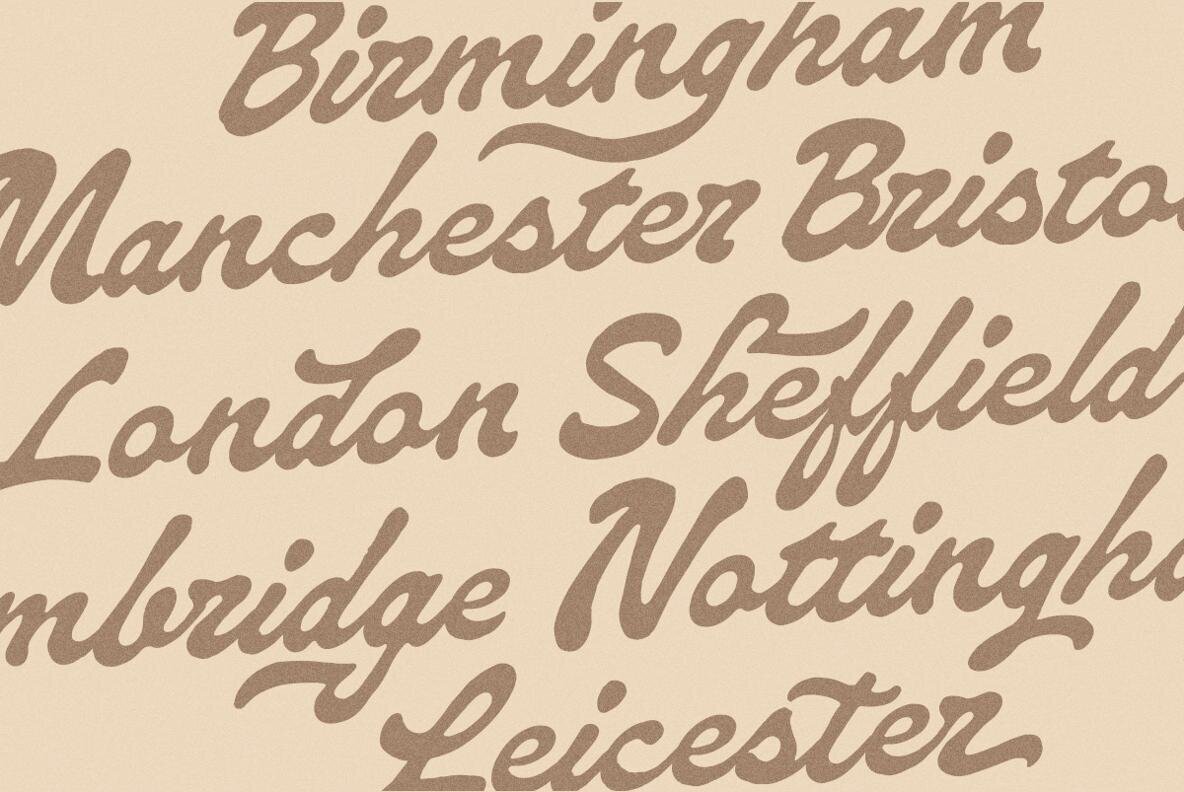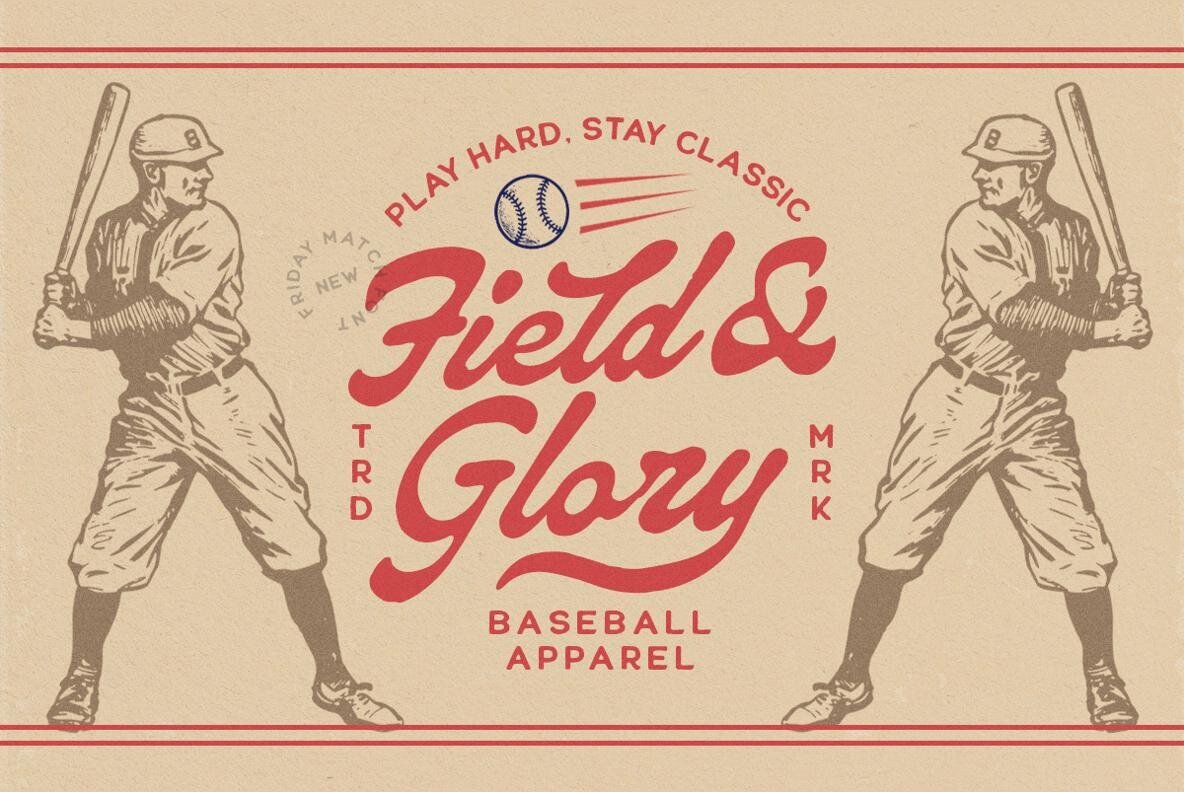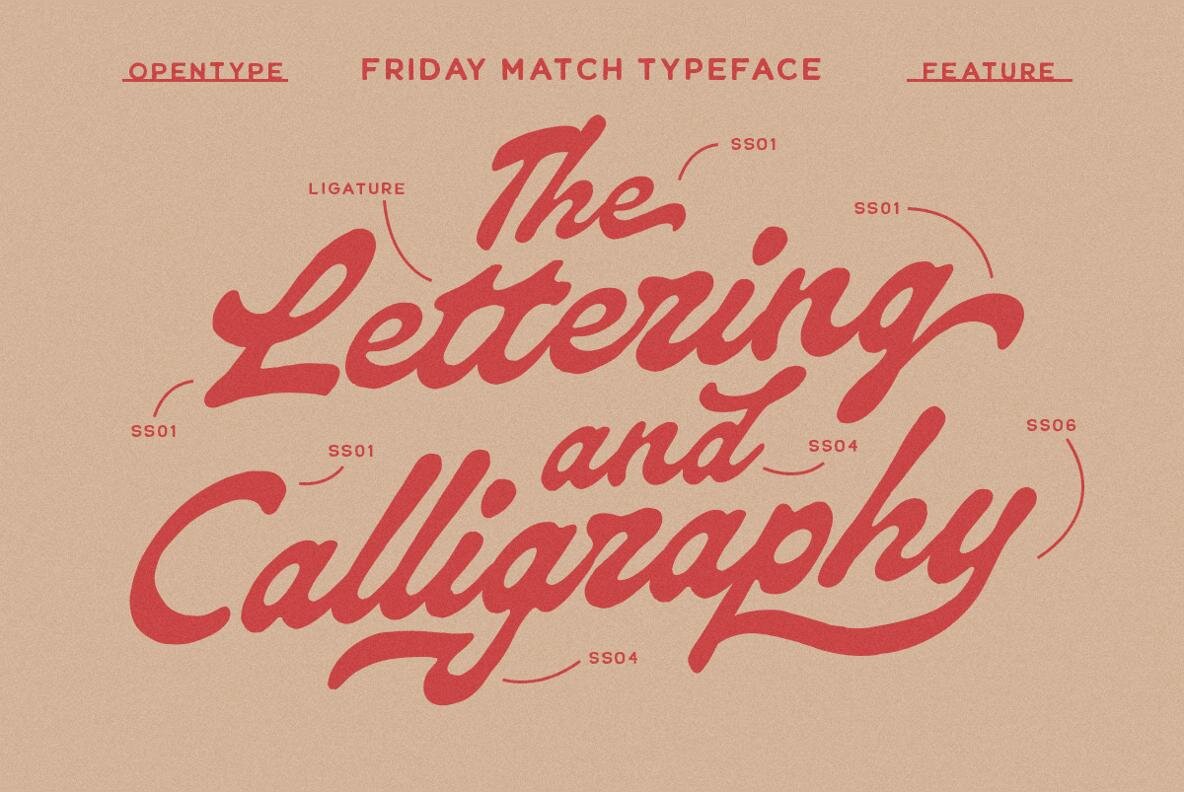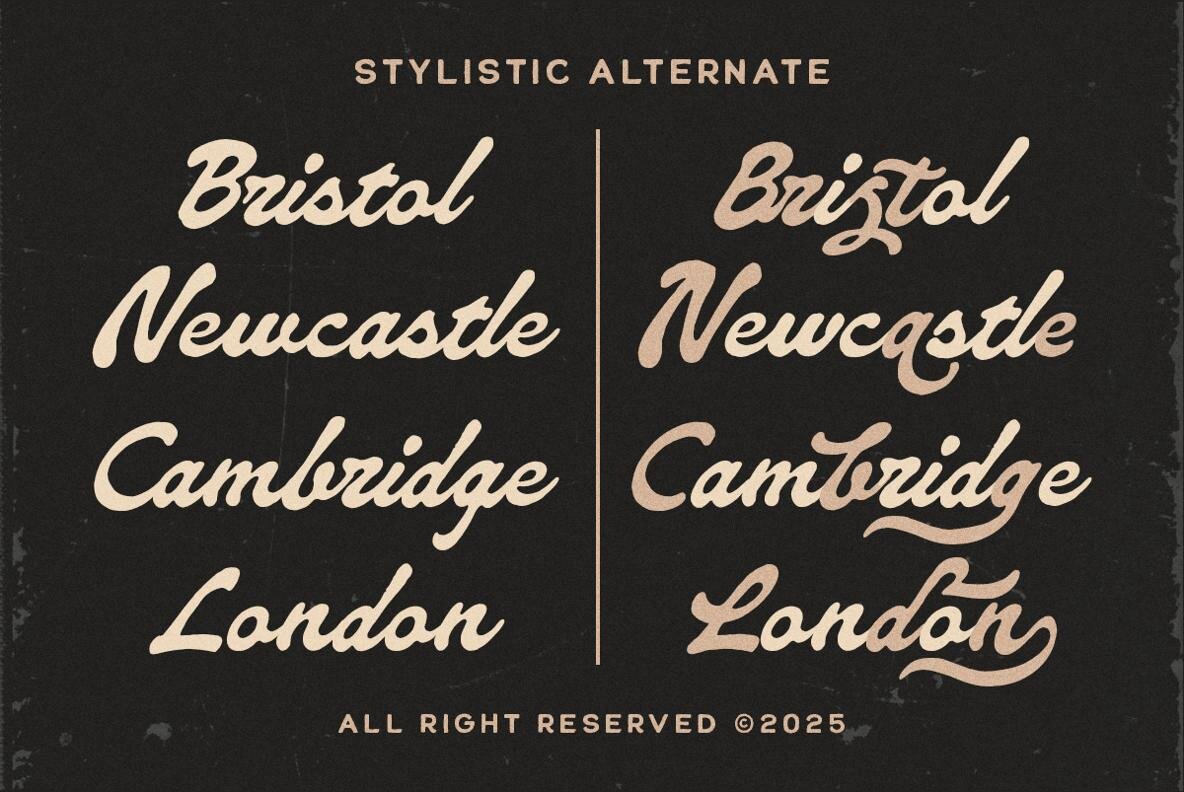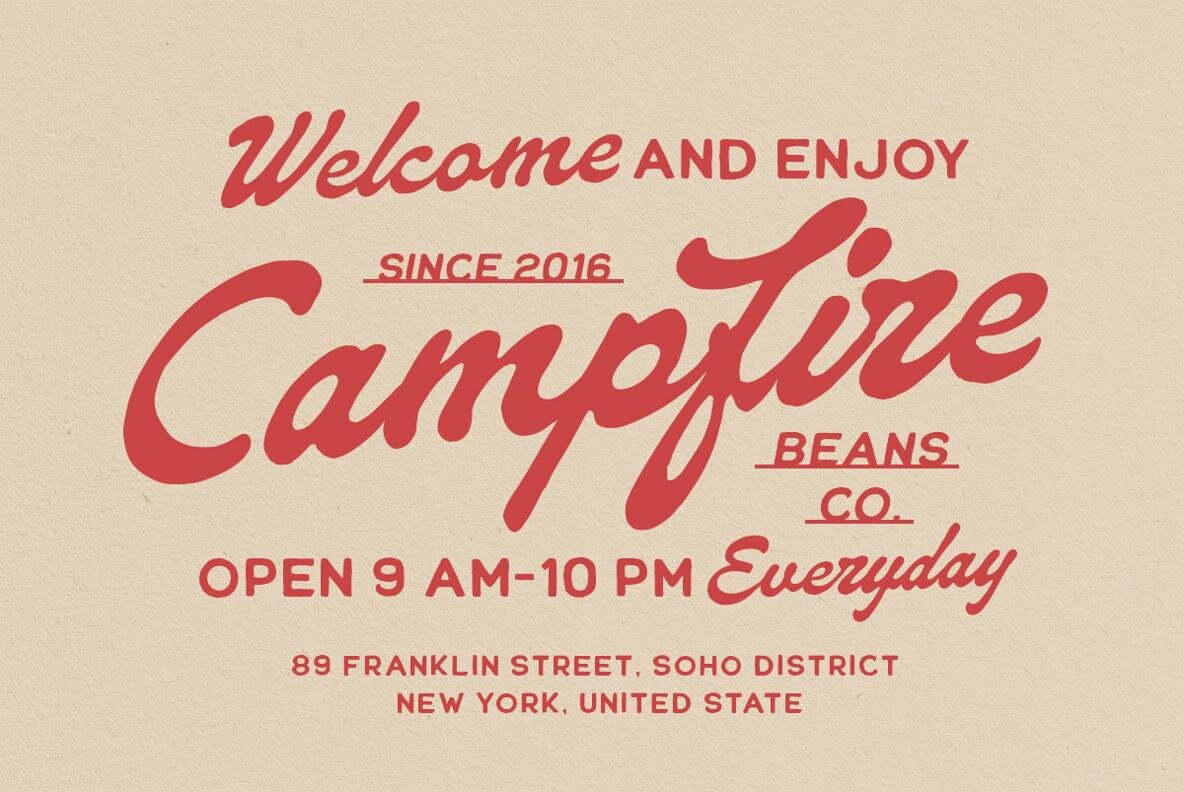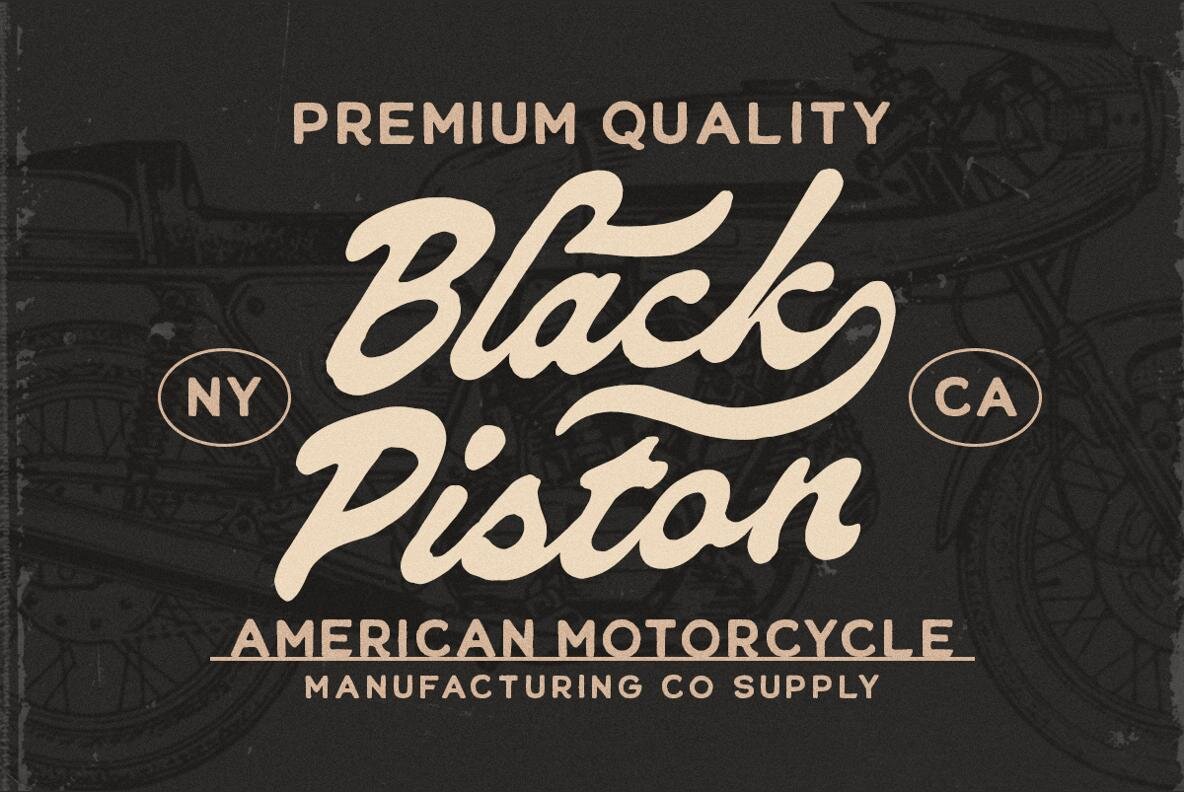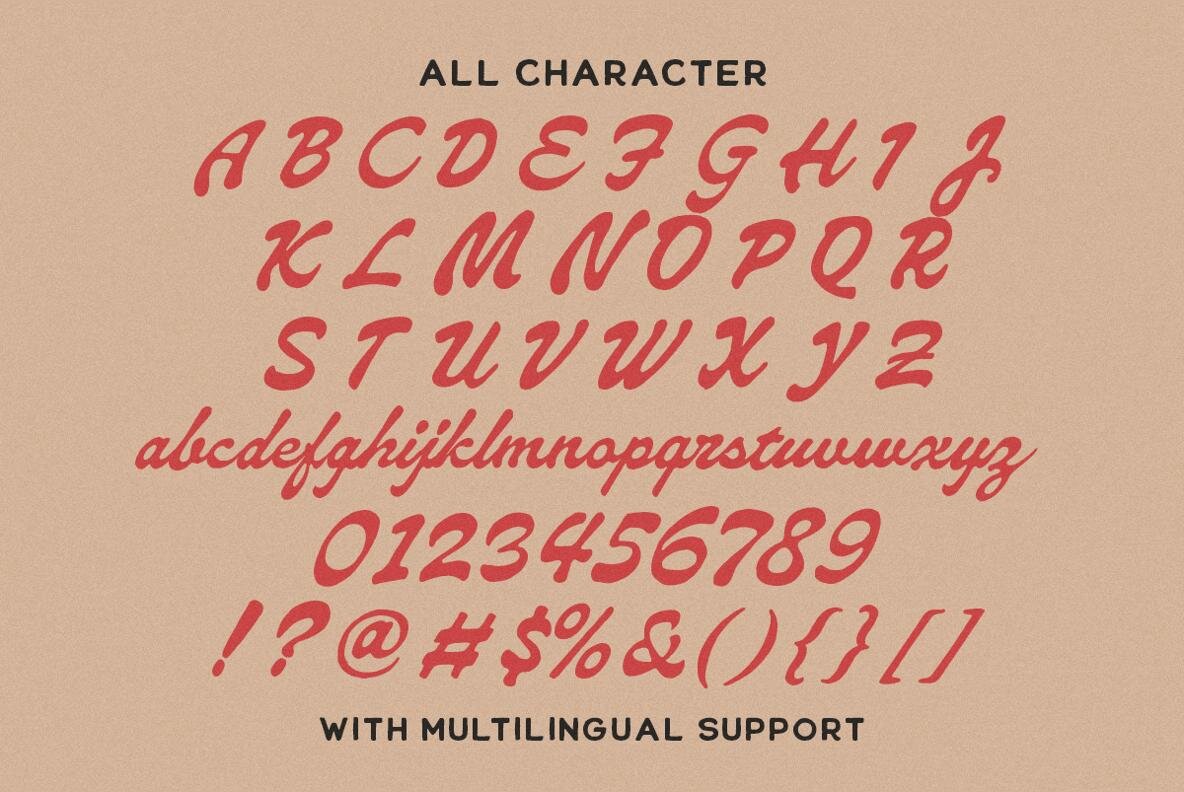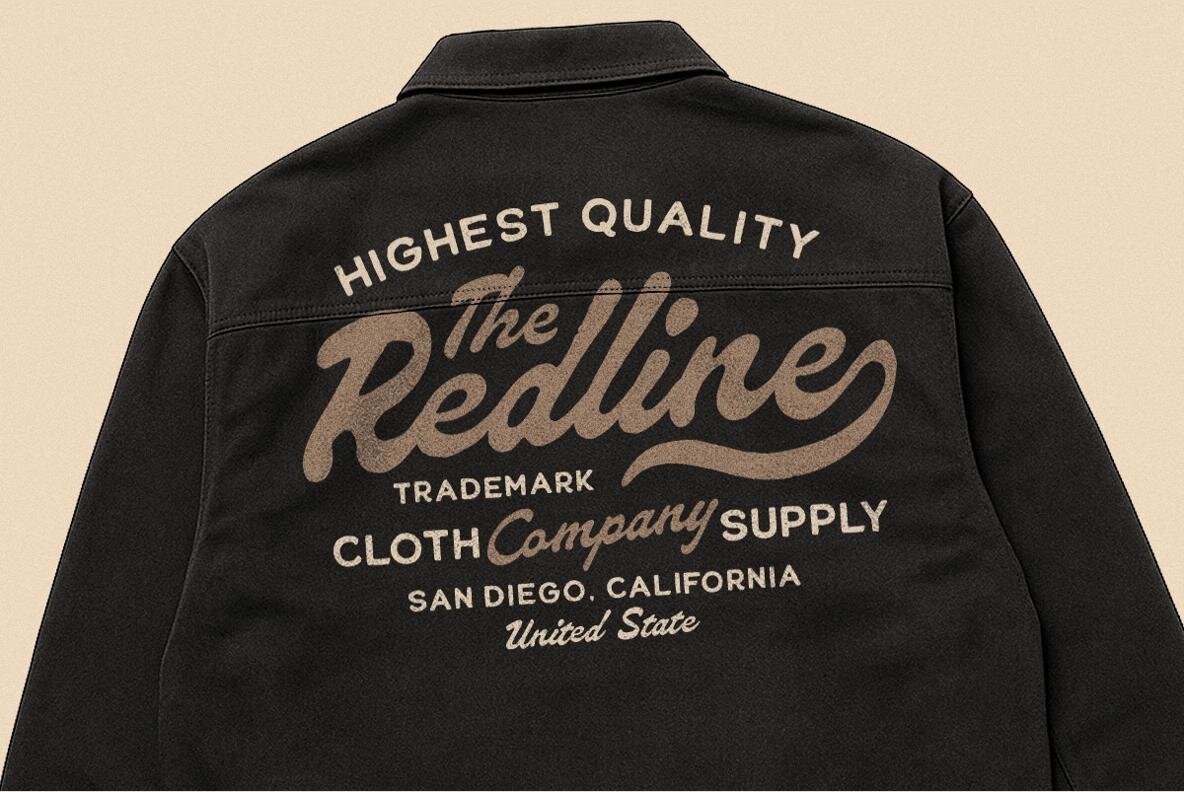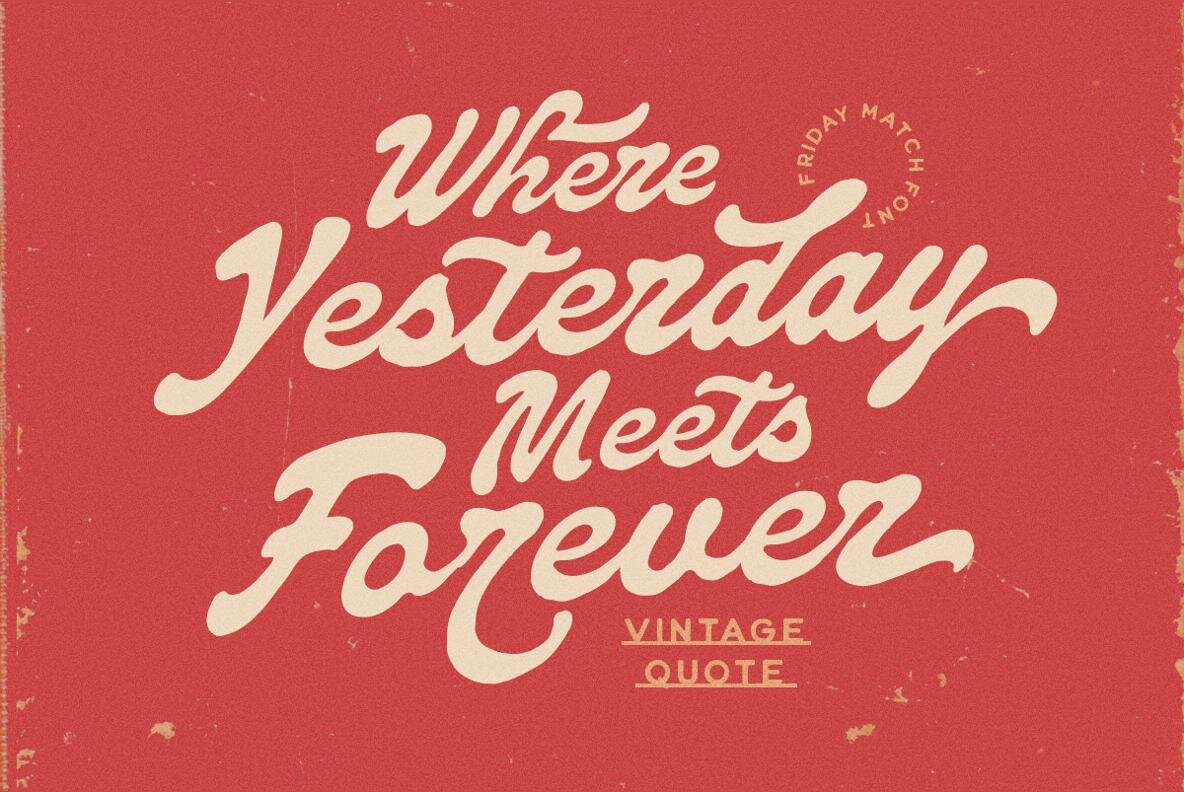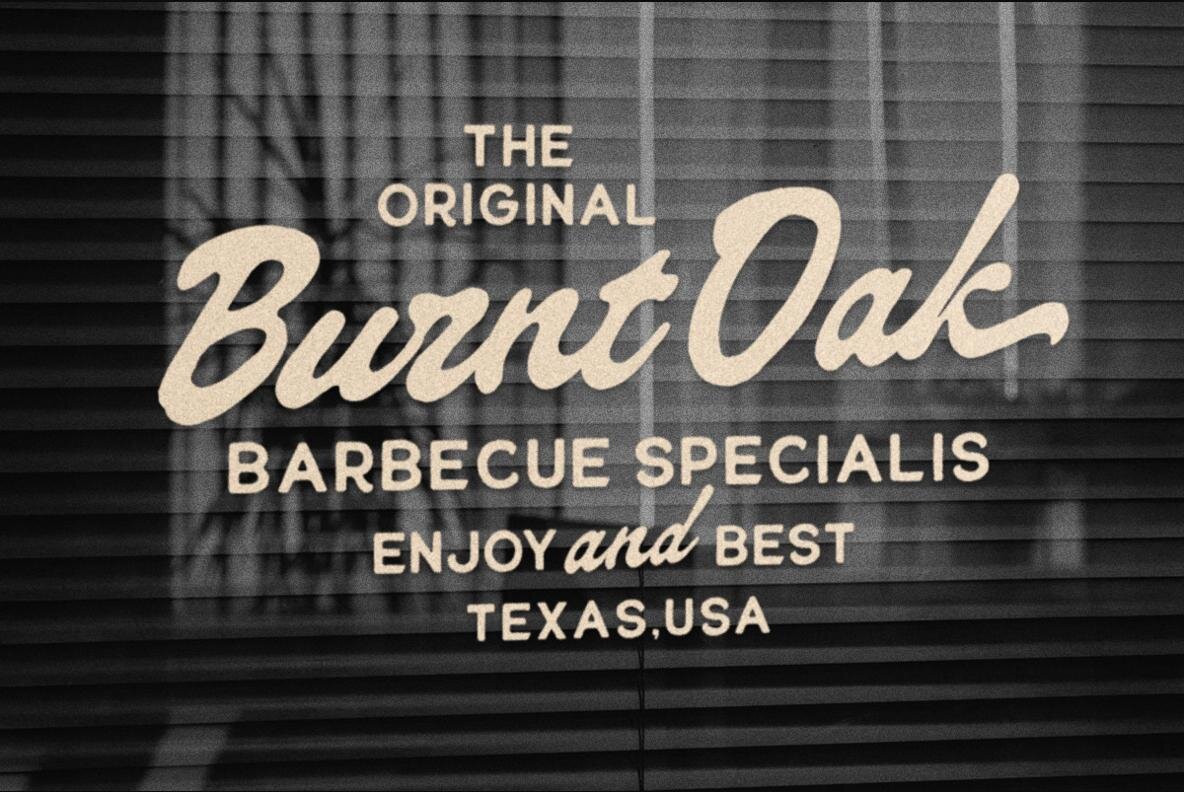
Friday Match Font
Friday Match Regular
Friday Match channels the lively spirit of vintage sports posters through its smooth, looping script and confident lines. With an inviting, retro style, this typeface conjures the energy of classic match-day graphics and mid-century sign art, balancing playful character with contemporary finesse. Its warmth and nostalgic nod make it particularly suited for branding, posters, packaging, and projects seeking a memorable, stylish visual impression.Friday Match: Nostalgic Script for Retro-Inspired Branding